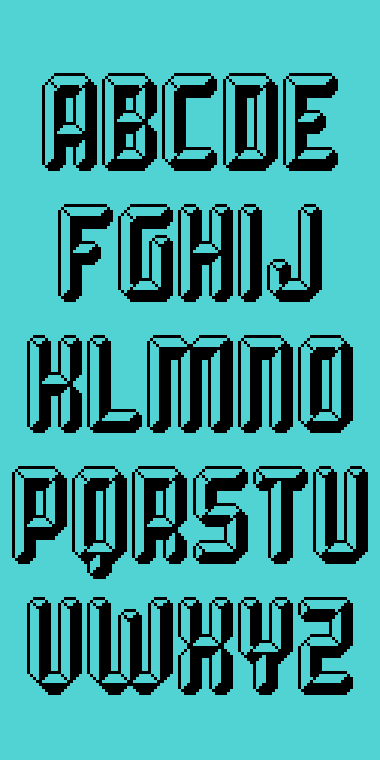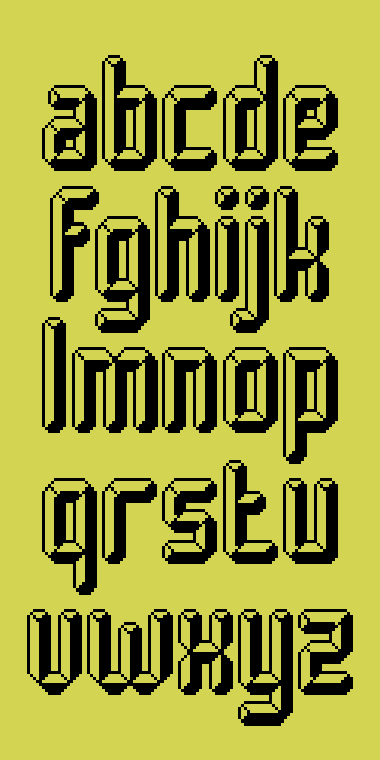
This really has a fun, familiar look. Why does this look so familiar? Doesn't matter, I love it!
Wow!
geweldig
Hey four, did you know that at this current moment you have exactly 4444 downloads of your work? :P anyway, I love the pixel shading of this font! Quite a neat design!
Good luck! I like it a lot, pal!
This font is awesome!
The only problem is that many symbols are missing... oh well.